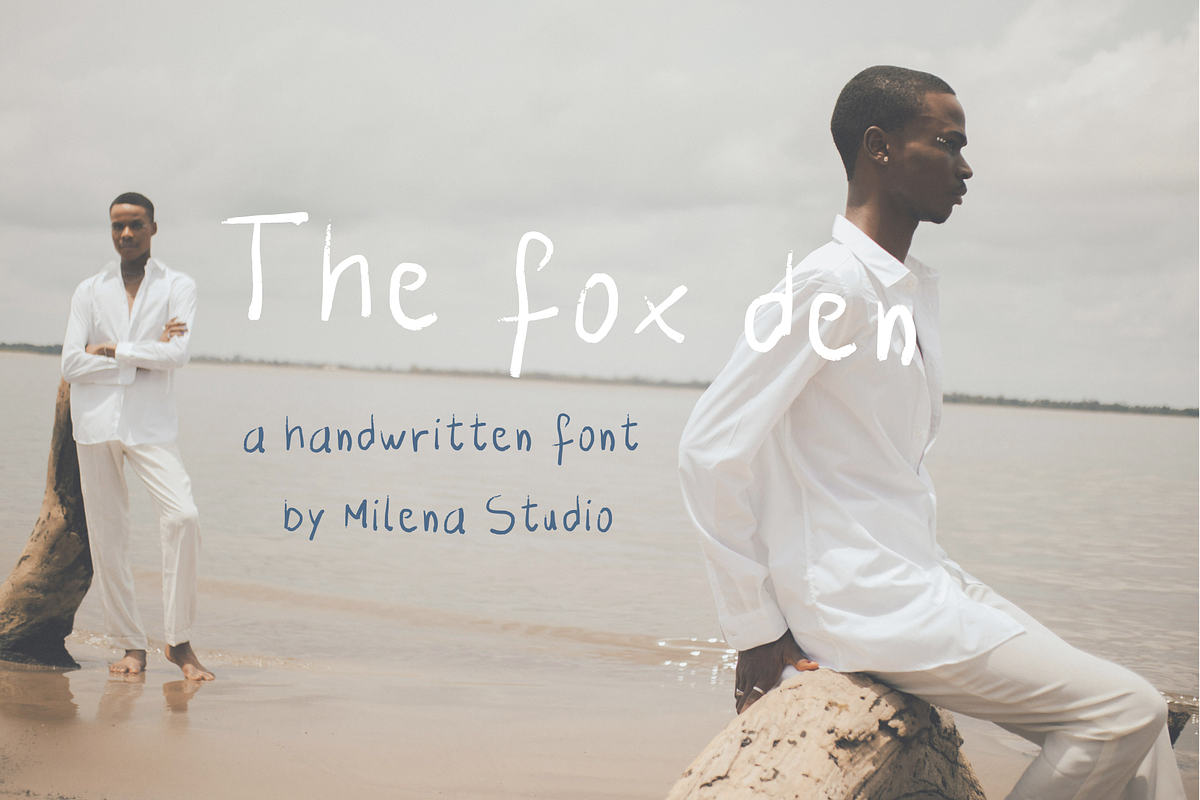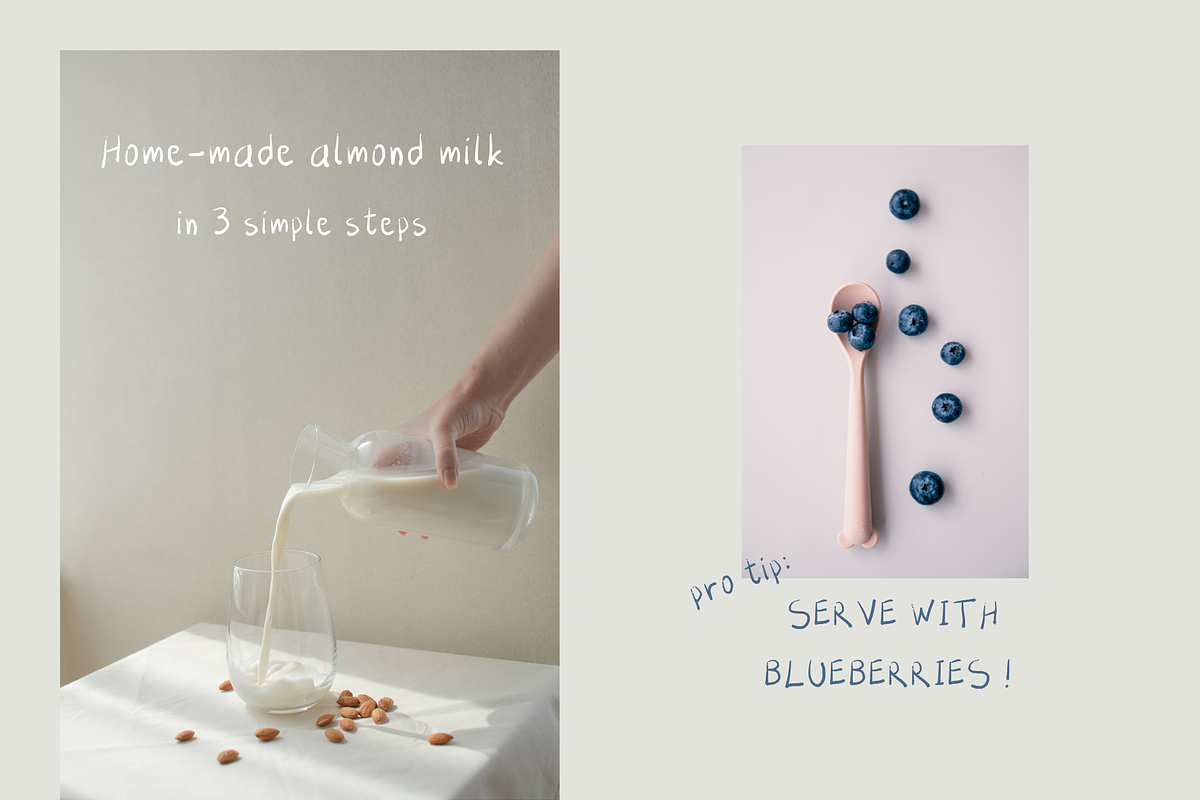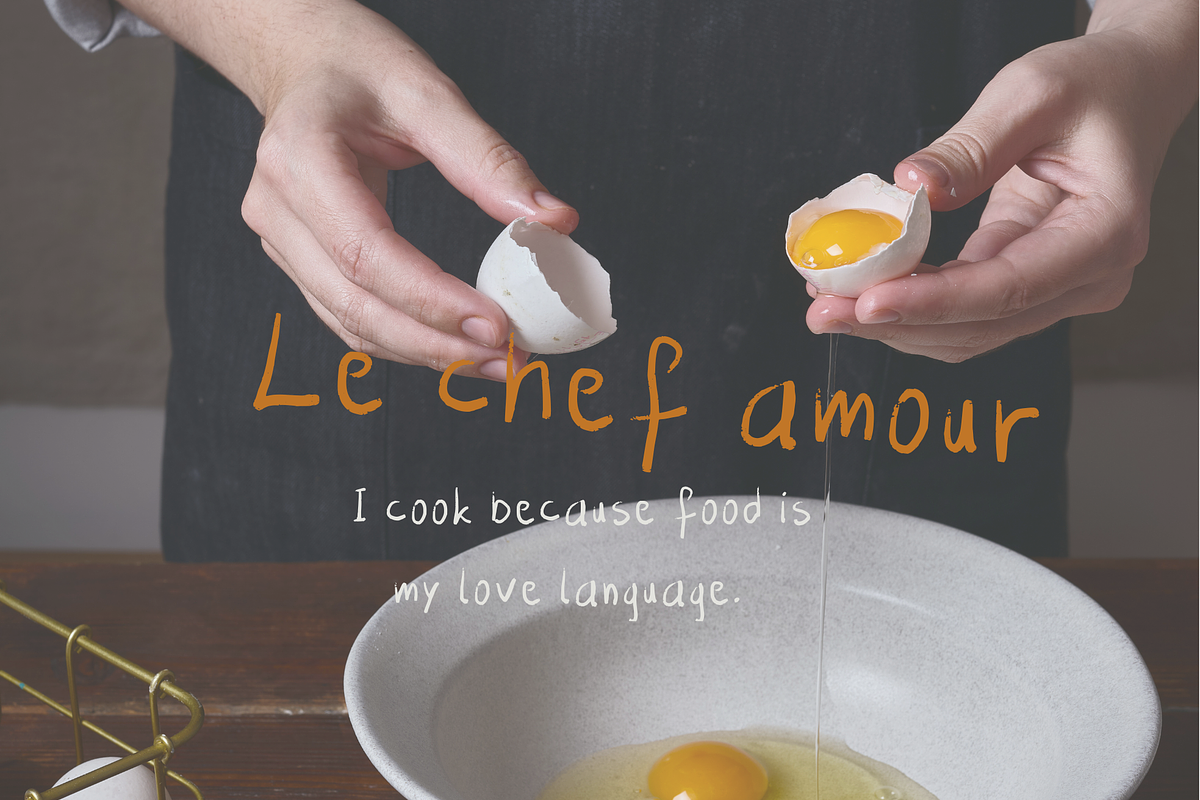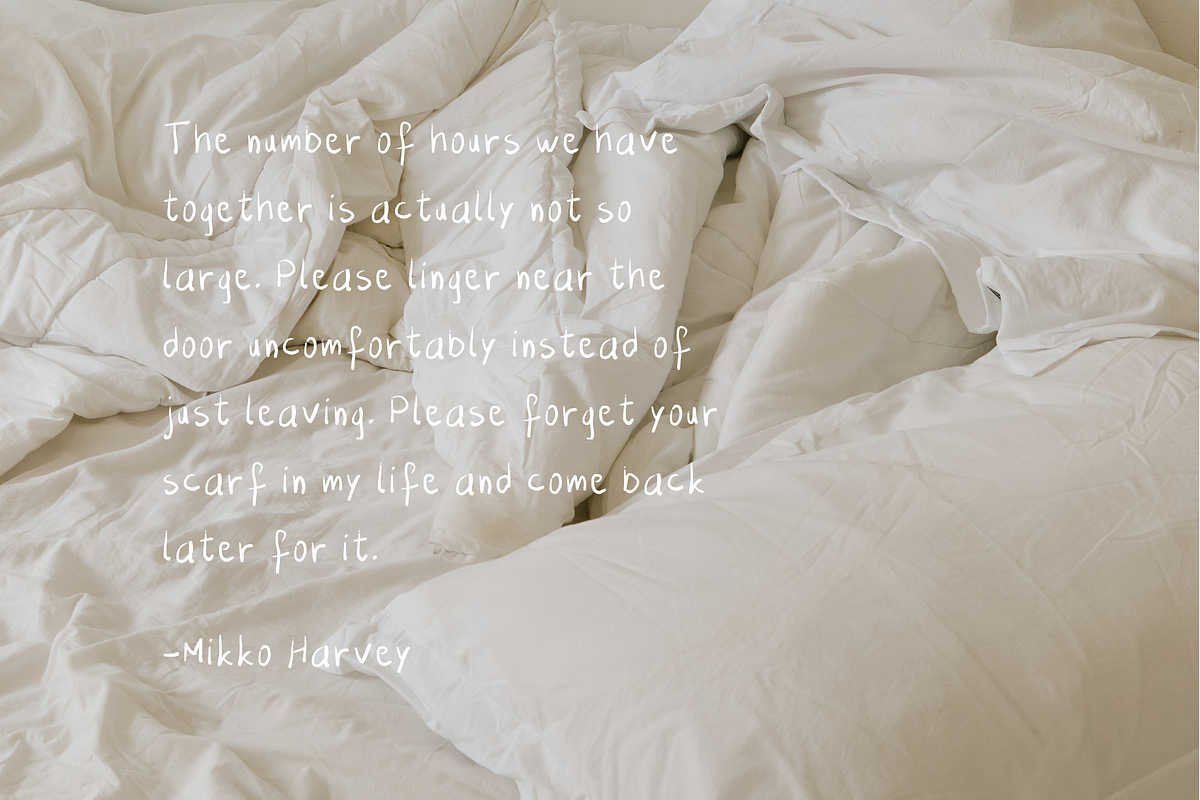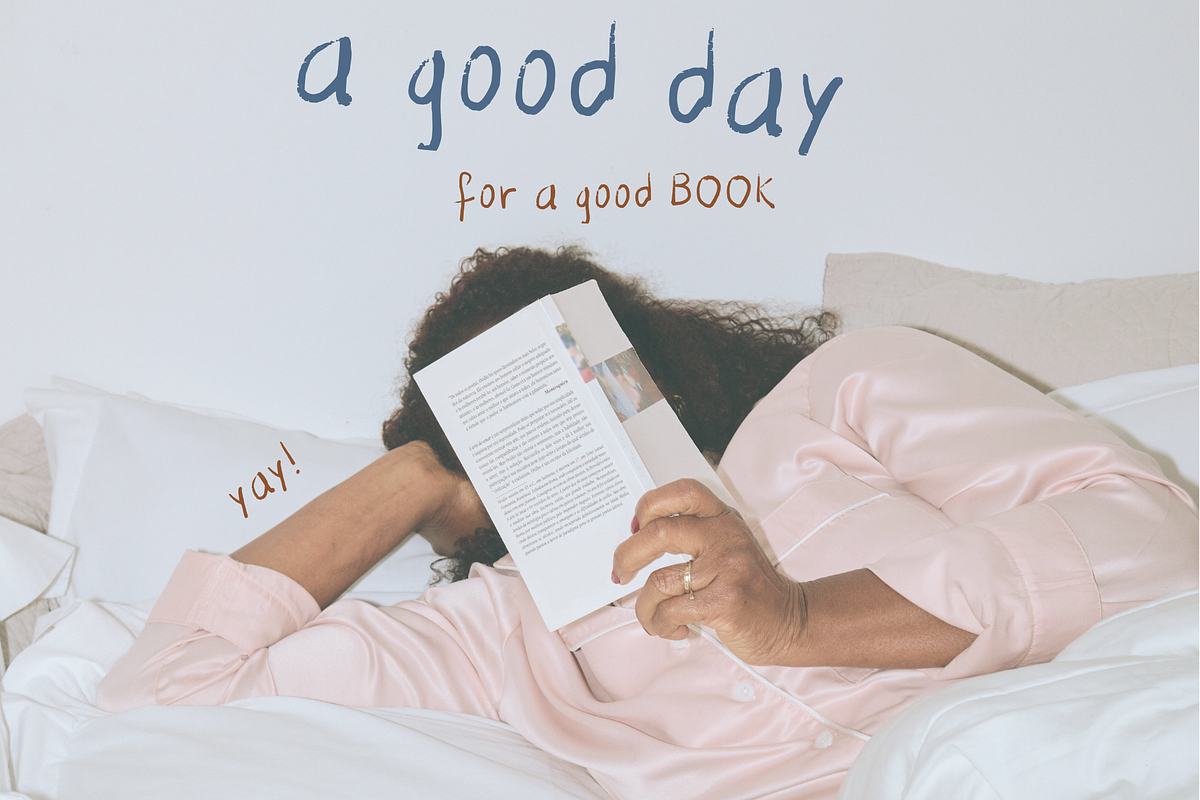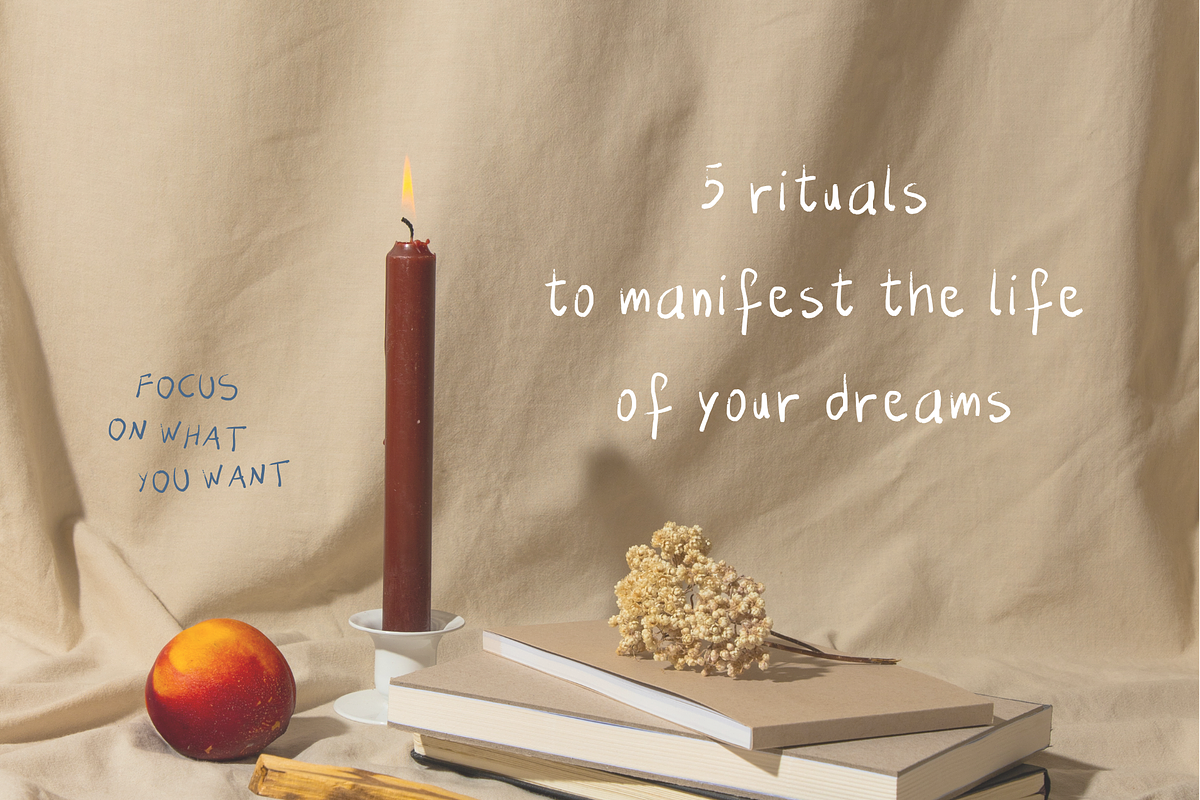
The fox den handwritten font
The Fox Den is a simple handwritten font made with a brush. The Fox Den includes upper and lower case, only English characters. It includes numbers and punctuation, but there is no option for Italic or Bold. The font is suitable for logo design, packaging, blog posts, poetry, Instagram posts, etc.